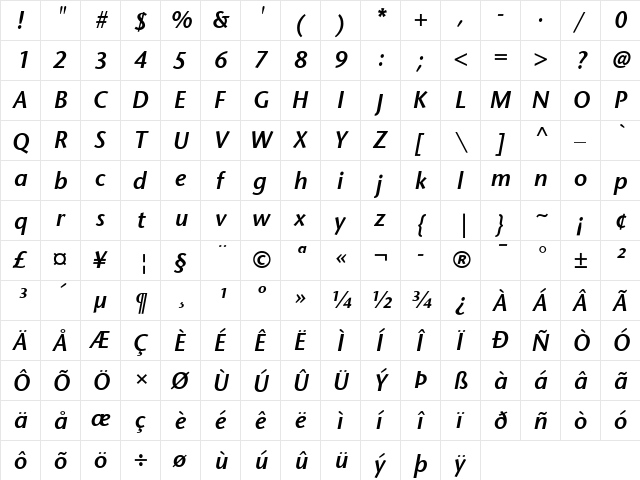
StoneSansSemibold Italic Font Preview
Design Context for StoneSansSemibold Typeface
StoneSansSemibold is a composed and adaptable typeface that performs quietly and consistently across a wide range of design contexts. The dynamic lean of this cut emphasises speed and emphasis in any layout. The heavy weight commands attention and anchors typographic hierarchies.
Pro Tip: Try StoneSansSemibold for annotation and caption copy alongside an upright companion — the contrast in angle creates a dynamic but ordered typographic system.